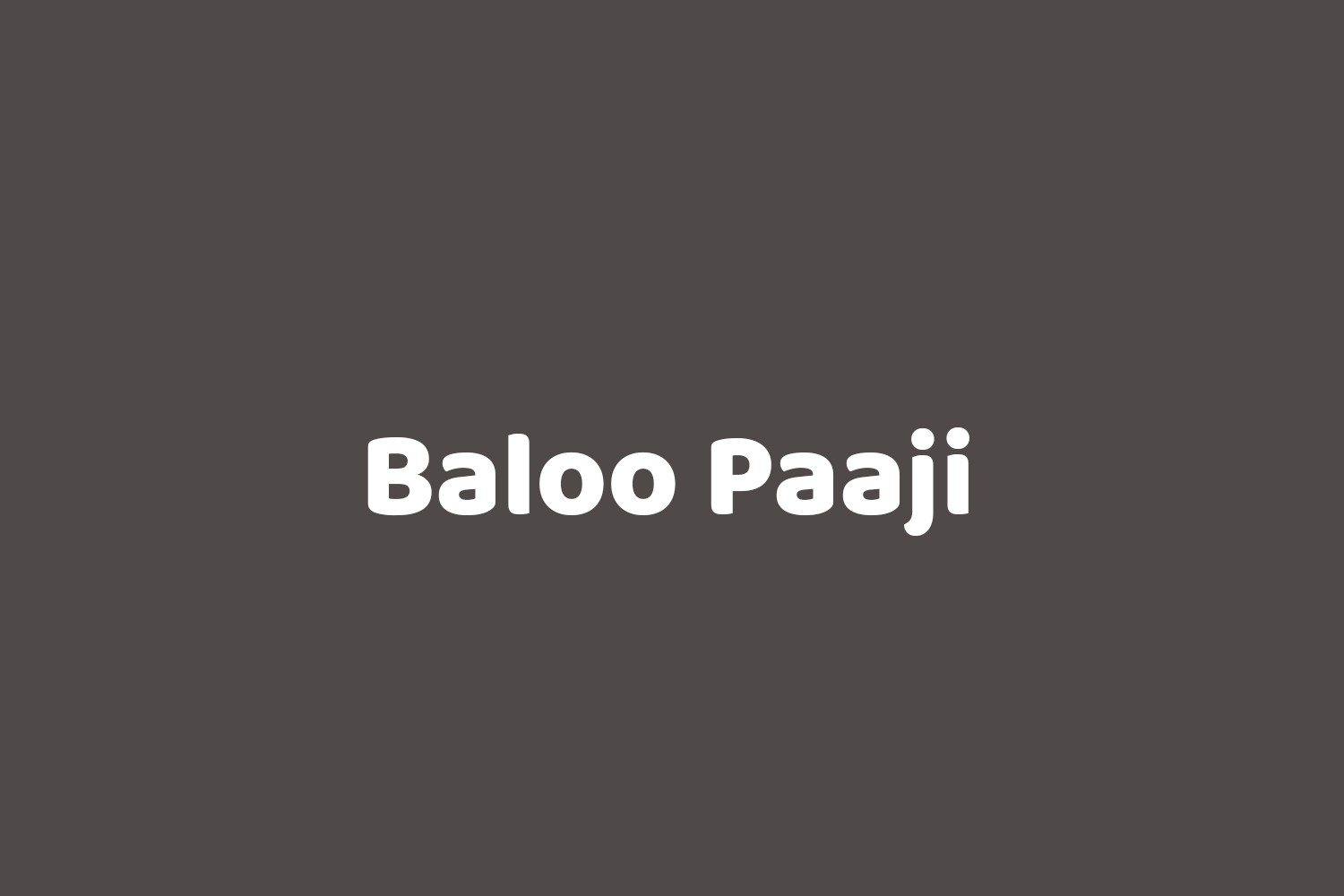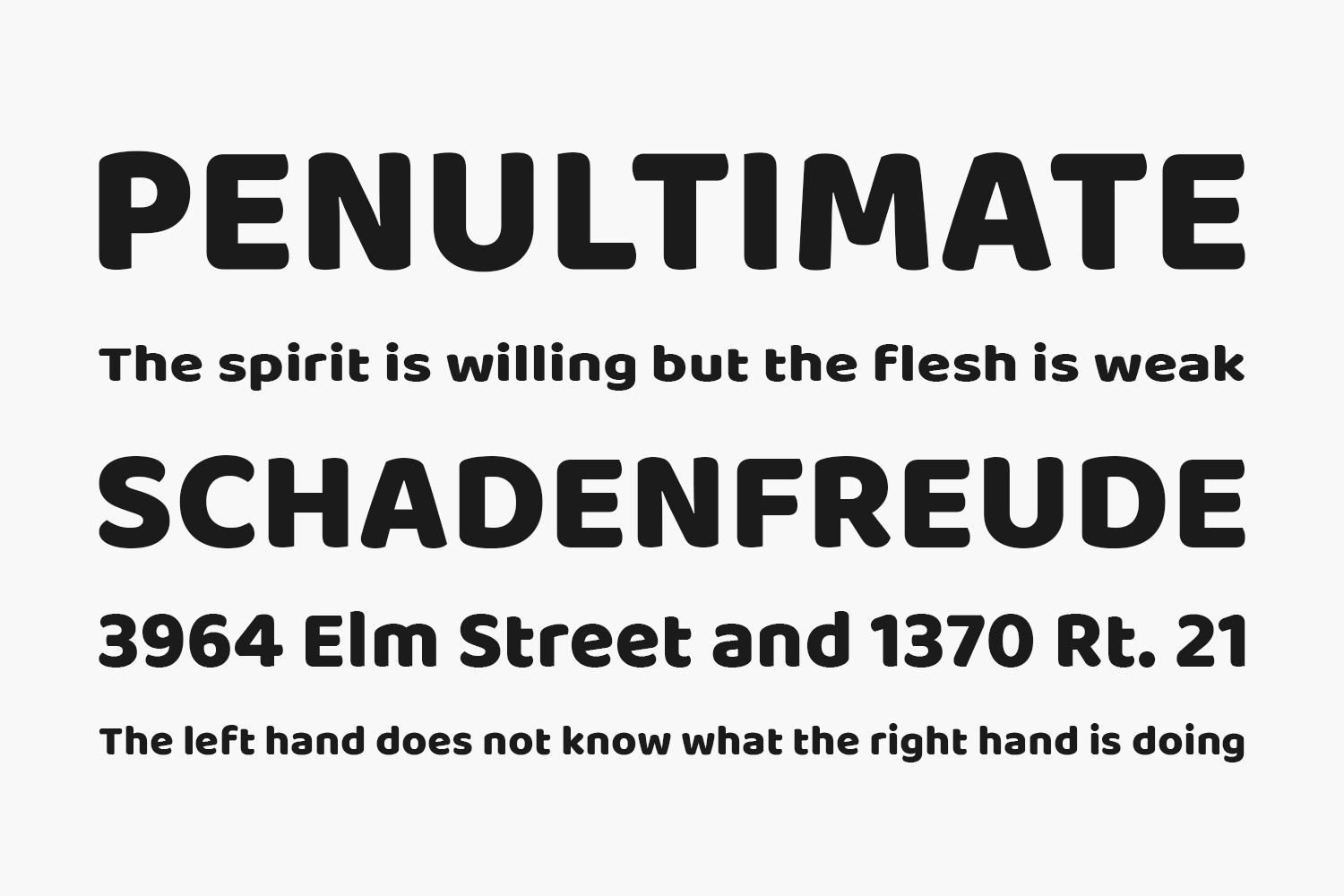
Baloo Paaji Free Font is a distinctive heavy spurless design with a subtle tinge of playfulness and all the bare necessities of type. Snuggling several scripts under a single weight, the typeface focuses on giving equal justice to every act of this gentle jungle affair to secure single and multi-script use. Carefree yet confident, warm yet entertaining, sprightly yet intelligible, Baloo infuses life everywhere it goes.
The Baloo project develops nine separate fonts with unique local names for each of the nine Indic Scripts. Each font supports one Indic subset plus Latin, Latin Extended, and Vietnamese.